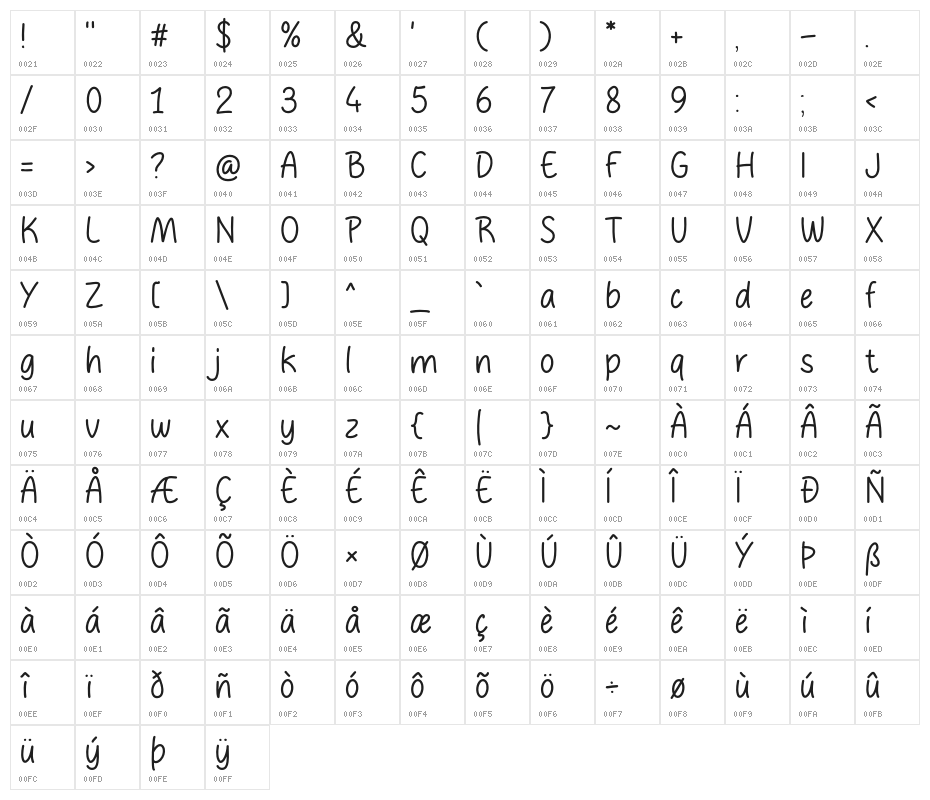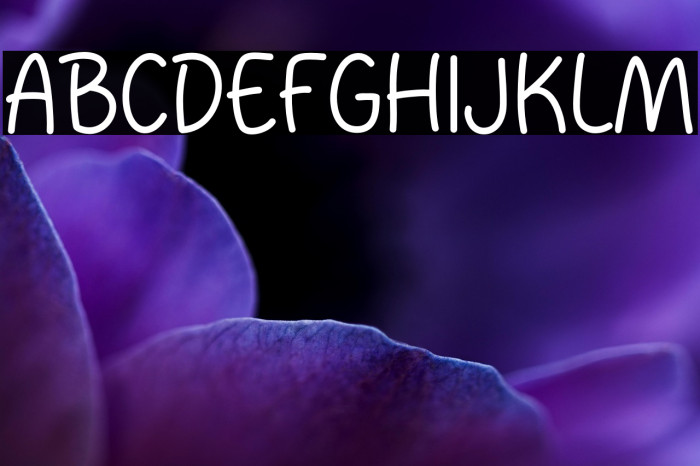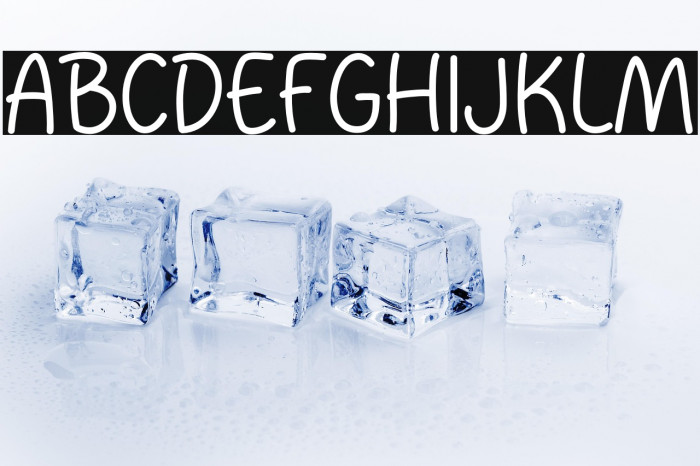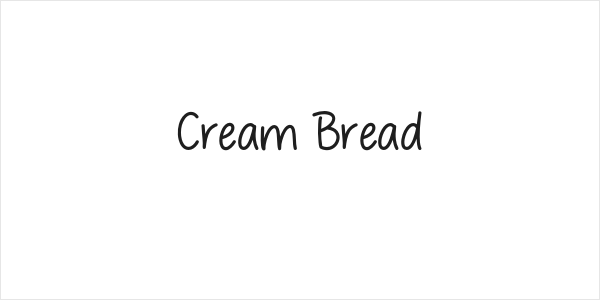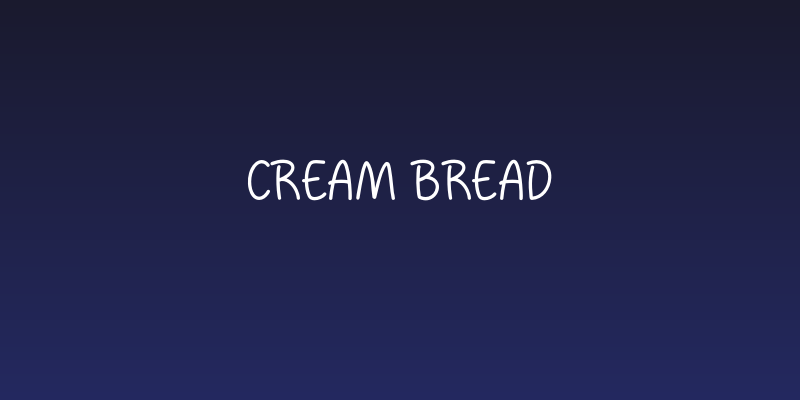
Cream Bread Font
Cream Bread Description
This font features a playful and casual handwritten style, characterized by its smooth and rounded letterforms. The strokes are consistent in thickness, giving it a friendly and approachable appearance. The letters are slightly slanted, adding a dynamic flow to the text. The overall design is clean and legible, making it suitable for various informal applications. The numerals and special characters maintain the same playful aesthetic, ensuring a cohesive look across all text elements.
| Use Case | Headlines, Informal text, Branding |
| Proposed Projects | Ideal for greeting cards, children's books, personal blogs, and informal branding projects. |